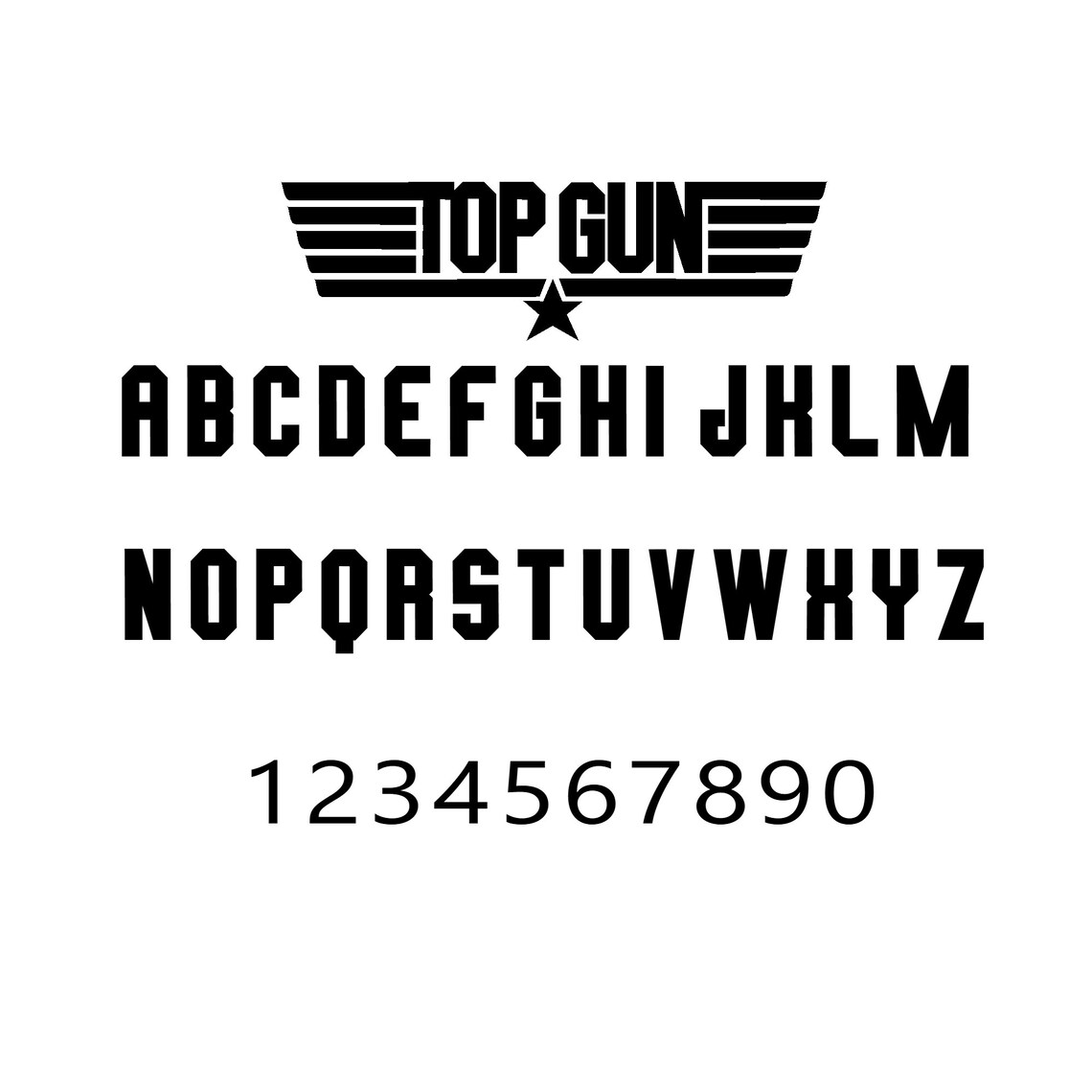
Top Gun Font Microsoft Word . Top gun font is available for free download for noncommercial, personal projects. Top gun font is a techno, various font designed by alphabet & type. Directly from the best movie by tony scott, with tom cruise, the original font for all lovers. Simply download it from the link below. The top gun font has been downloaded 128,348 times. “top gun” is the font used in the movie top gun. This font is designed by alphabet & type. Free download of top gun font. Download and install the top gun font by alphabet & type. You can use the font in your personal projects. Download free top gun font. Directly from the best movie by tony scott, with tom cruise, the original font for all lovers. Your computer will install the font, and once completed, you can use it in any software that supports custom fonts, such as microsoft word or adobe photoshop. What font was used in top gun logo and posters?